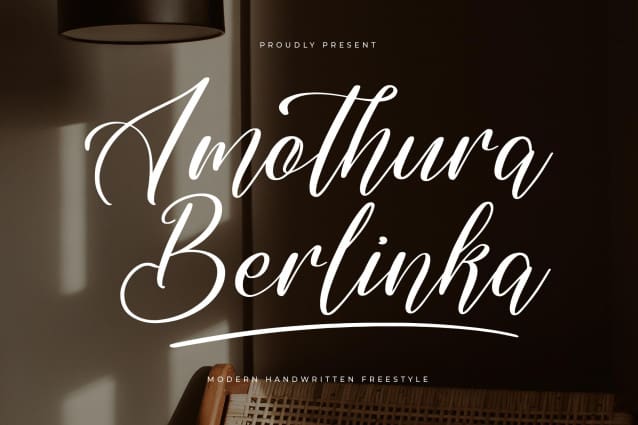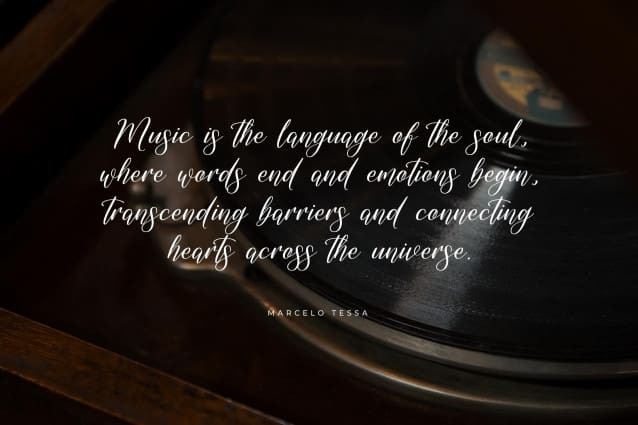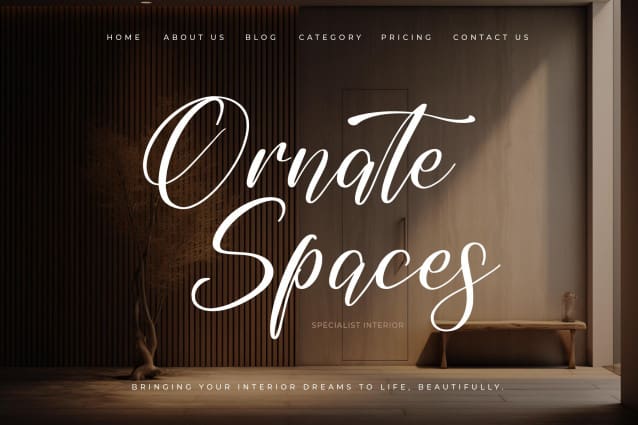
Amothura Berlinka Font
Amothura Berlinka Font – Modern Handwritten Freestyle , from Letterena, is a Luxury Script font, suitable for any projects such as: logos, branding projects, homeware designs, product packaging, mugs, quotes, posters, shopping bags, t-shirts, book covers, name card, invitation cards, greeting cards, label, photography, watermark, special events, and all your other luxury and beautiful projects that need a Luxury Script taste.